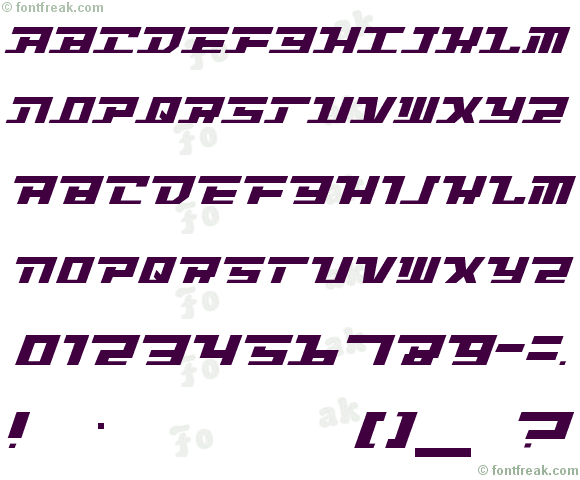
Intrepid
About Intrepid
Intrepid, designed by Daniel Zadorozny in 1999, is a striking display font that captures attention with its bold and adventurous character. As a decorative typeface, it features a unique combination of geometric shapes and dynamic lines, making it an excellent choice for projects that require a strong visual impact. The font boasts a consistent stroke weight, adding to its modern appeal, while the slight contrast in line thickness enhances its legibility. With generous spacing between characters, Intrepid ensures readability, even in larger sizes, making it ideal for various applications.
This font is perfect for use in eye-catching movie posters, where it can convey a sense of drama and excitement. It also shines in promotional materials for outdoor adventures or travel-related businesses, appealing to audiences seeking thrill and exploration. Additionally, Intrepid can elevate the design of event flyers, such as music festivals or sporting events, where boldness and clarity are paramount. Small business owners can leverage this font for branding purposes, particularly in contexts that emphasize creativity and innovation, such as cafes or artisan shops. Content creators will find it an excellent fit for social media graphics, where grabbing attention quickly is essential.
The target audience for Intrepid includes graphic designers looking for a distinctive typeface that stands out, as well as small business owners and content creators aiming to enhance their visual identity. The Intrepid font free download offers an accessible opportunity for users to incorporate this unique typeface into their work. What sets Intrepid apart is its ability to marry boldness with clarity, making it not only visually striking but also functional for a wide range of design needs. Whether you're crafting an adventurous theme or seeking to make a memorable statement, Intrepid is a remarkable choice for your typography toolkit.